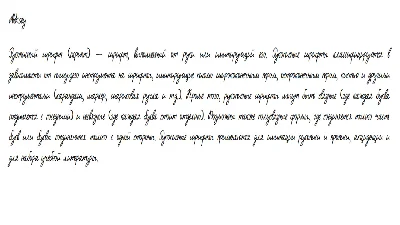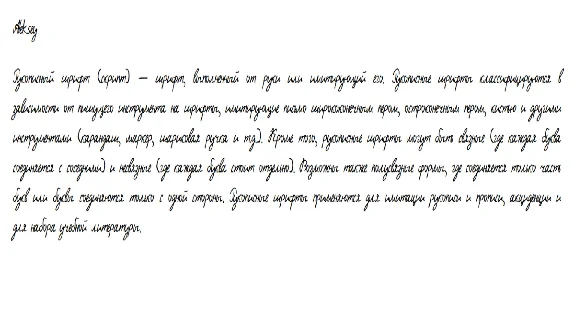
Handwritten font from Aleksey's handwriting.
Author’s font made from real human handwriting. Thanks to this font, you can print any texts you need, while they will be as similar as possible to handwritten ones.
The font will be useful for writing "by hand" essays, term papers, diplomas, various kinds of statements, etc.
Supported languages:
- Russian
- English